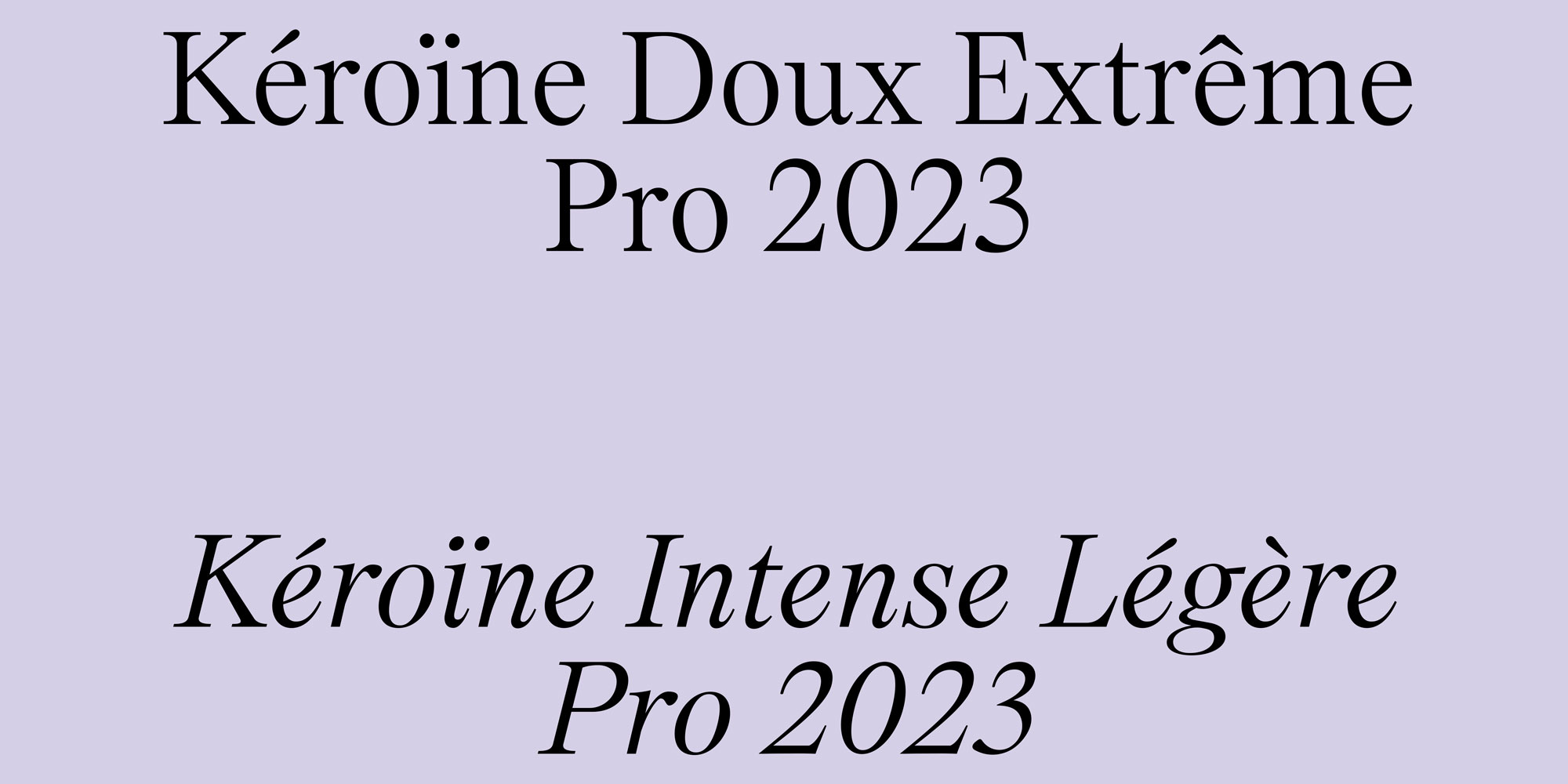
Kéroïne PRO
Kéroine Doux Extrême embodies the delicate balance between strength and softness, much like the rituals of skincare it reflects. The typeface carries an ethereal quality, with its elongated forms and smooth, flowing lines that resemble the gentle application of a luxurious cream across the skin. Each letter feels as if it has been meticulously crafted, with thin, graceful strokes that evoke the sensation of a silky serum being absorbed, leaving behind a subtle sheen.
Doux Extreme Intense Legere